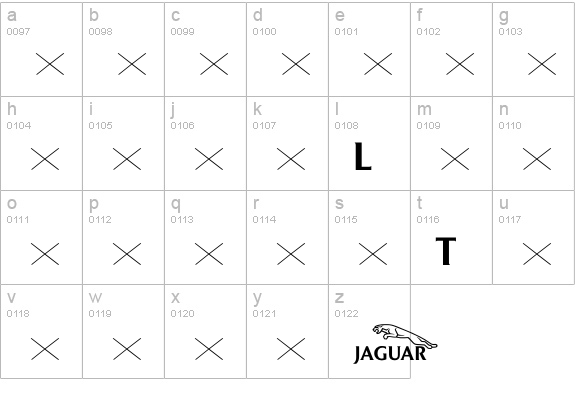
JaguarTitlingJC-Medium Font Details
JaguarTitlingJC-Medium is a balanced, medium-weight variant in the JaguarTitlingJC typeface family \xE2\x80\x94 well suited to sub-headlines, navigation, and balanced editorial work.
JaguarTitlingJC-Medium is an elegant and captivating font that effortlessly combines modernity with a touch of classic sophistication. Its sleek and slender letterforms exude a sense of refinement, making it perfect for a wide range of design projects. This font boasts a medium weight, striking the perfect balance between boldness and subtlety. Its smooth curves and sharp edges create a harmonious aesthetic, ensuring that each character is visually captivating and highly readable. The versatility of JaguarTitlingJC-Medium is truly remarkable. Whether you are designing a logo, creating a striking headline, or crafting an eye-catching poster, this font will elevate your work to new heights. Its timeless appeal and contemporary edge make it suitable for both professional and personal projects. One of the most appealing aspects of JaguarTitlingJC-Medium is that it is freely available to download at FontsMarket.com. This means that you can easily access and incorporate this stunning font into your designs without any financial burden. The convenience and accessibility of this font make it an invaluable resource for designers, students, and anyone seeking to add a touch of elegance to their creations. In conclusion, JaguarTitlingJC-Medium is a font that effortlessly combines modernity and classic sophistication. Its medium weight, sleek letterforms, and timeless appeal make it a versatile choice for a variety of design projects. And the fact that it is freely available to download at FontsMarket.com only adds to its allure. So why wait? Download JaguarTitlingJC-Medium today and let your creativity soar.